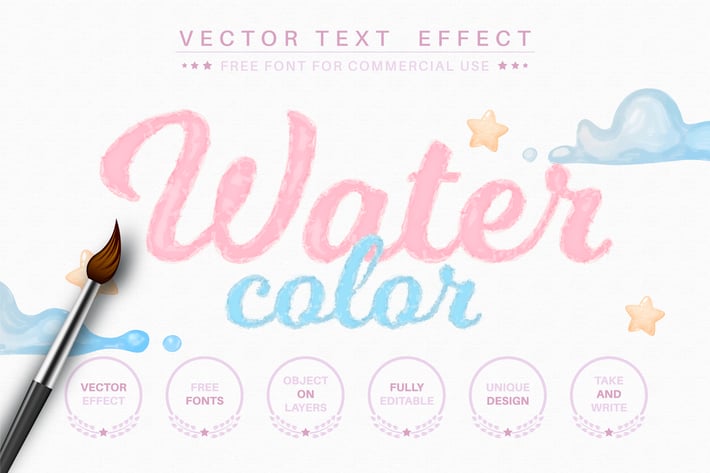
Watercolor - editable text effect, font style
Hello! I'm happy to introduce my new text effect "Watercolor". Just write your word and the effect will apply! Be as creative as you like to be in expressing yourself using this unique “Watercolor”. Effect is perfect for any project that needs a unique handy touch whatever else your imagination leads you to!